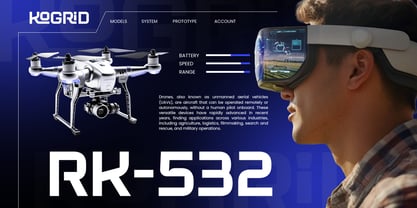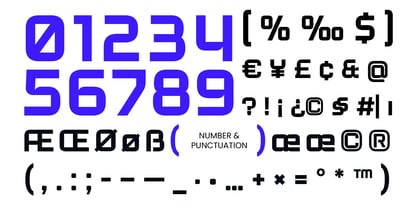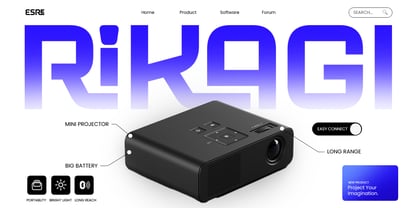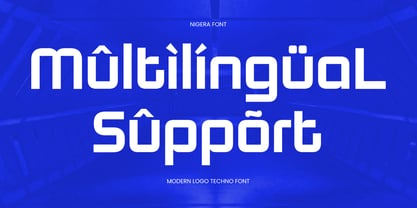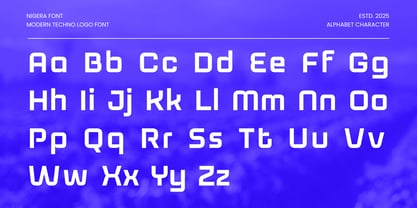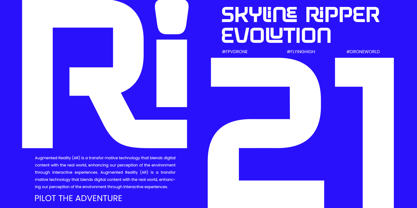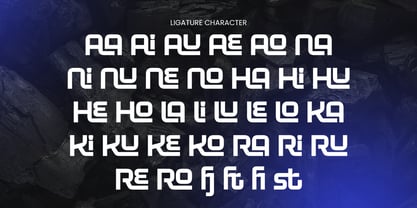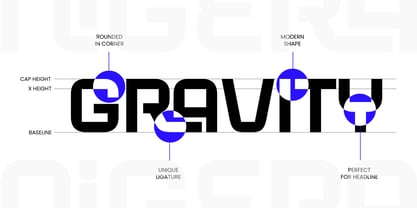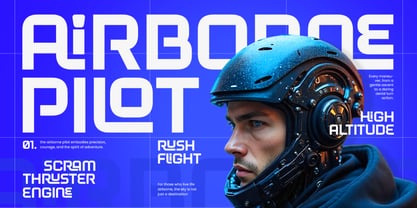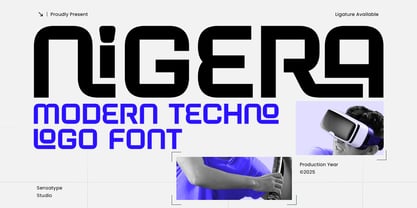
Nigera
NIGERA is a modern techno logo font built for forward-thinking brands and digital creators. With its clean geometric structure and futuristic design, it delivers a sharp, professional look perfect for technology, software, gaming, and modern interface branding.
Inspired by cyber aesthetics and digital precision, NIGERA combines minimalism with power. Its strong letterforms and smooth balance make it ideal for modern logos, web headers, app interfaces, and product packaging that need a contemporary, high-tech feel.
Whether you're designing a tech startup identity, esports brand, or sci-fi poster, NIGERA brings a cutting-edge visual presence that feels innovative and refined across both print and digital platforms.
NIGERA – Modern Techno Logo Font Features
• Futuristic geometric typeface for modern branding
• Perfect for tech startups, software, esports, and digital design
• Sleek letterforms with balanced proportions and clean precision
• Great for logos, UI design, posters, and product packaging
• Uppercase, lowercase, numerals, and punctuation included
• OpenType features for advanced typographic control
Multilingual support for Afrikaans, Albanian, Asu, Basque, Bemba, Bena, Breton, Chiga, Cornish, Dutch, English, Estonian, Filipino, Finnish, Friulian, Galician, German, Gusii, Indonesian, Irish, Italian, Kabuverdianu, Kalenjin, Kinyarwanda, Luo, Luxembourgish, Luyia, Machame, Makhuwa-Meetto, Makonde, Malagasy, Manx, Morisyen, North Ndebele, Nyankole, Oromo, Portuguese, Quechua, Romansh, Rombo, Rundi, Rwa, Samburu, Sango, Sangu, Scottish Gaelic, Sena, Shambala, Shona, Soga, Somali, Spanish, Swahili, Swedish, Swiss, and more.